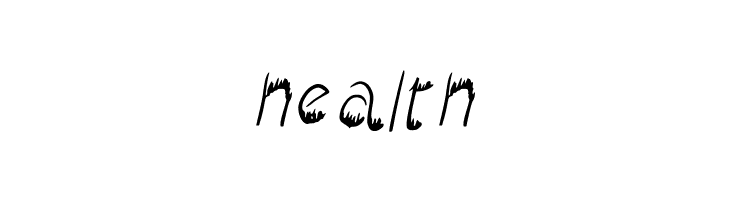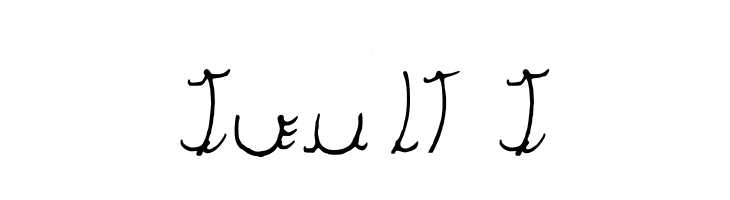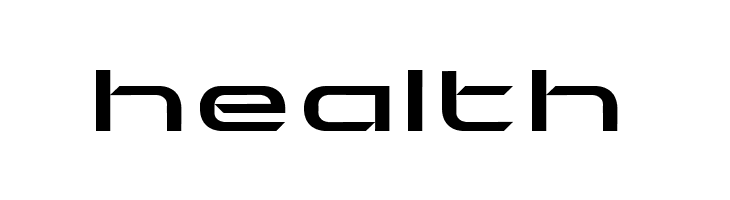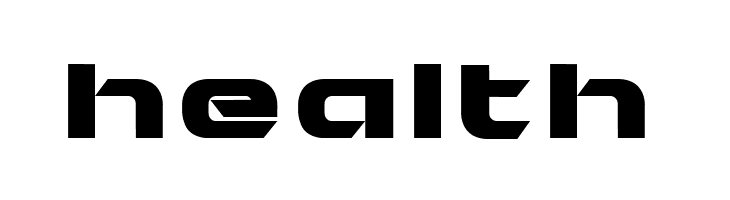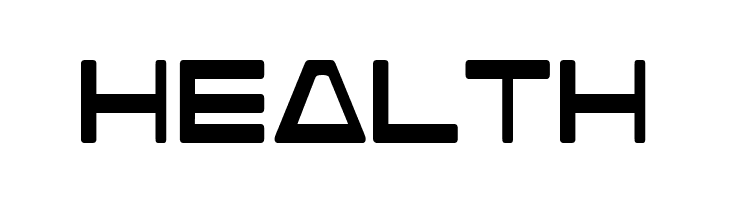
( Blambot - www.blambot.com )
A futuristic, geometric font with sharp angles and a digital aesthetic.
( Character )
A bold, decorative font with a chiseled, textured appearance.
( CraftThings - www.craftthings.com )
A vintage-meets-futuristic font with elongated, narrow letterforms and sharp edges.
( Digital Agent Factory - web.archive.org/web/20030621173551/daf.to/font.html )
A playful, bold font with characters enclosed in circles, offering a unique and cohesive look.
( Jeni Pleskow - rois.org/ )
An ornate, decorative font with intricate, stained glass-like designs.
( Nouman )
A playful, dripping font with a dynamic, hand-drawn style.
( Nouman )
An energetic, italic font with jagged, textured strokes.
( Promentory - clingman-photography.site123.me/ )
A whimsical and artistic script font with flowing, handwritten characters.
A futuristic, geometric font with sharp, angular letterforms.
A bold, futuristic font with geometric shapes and sharp angles.